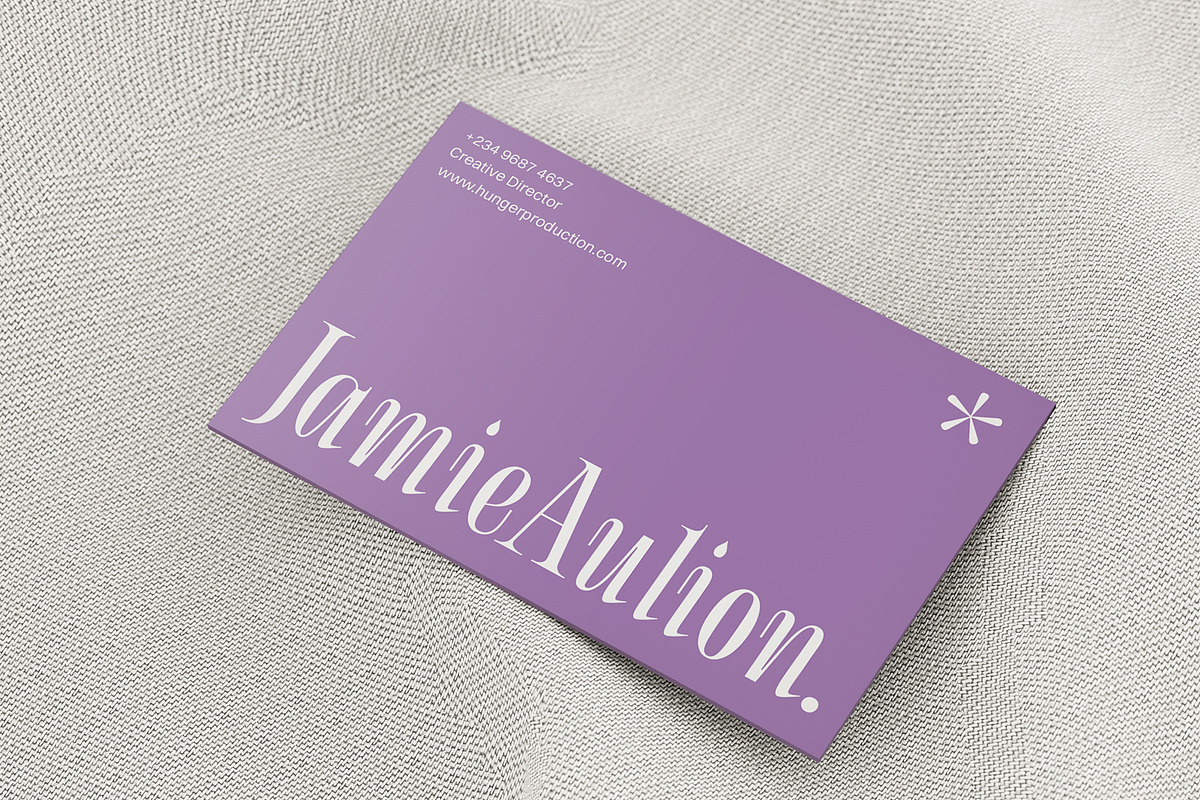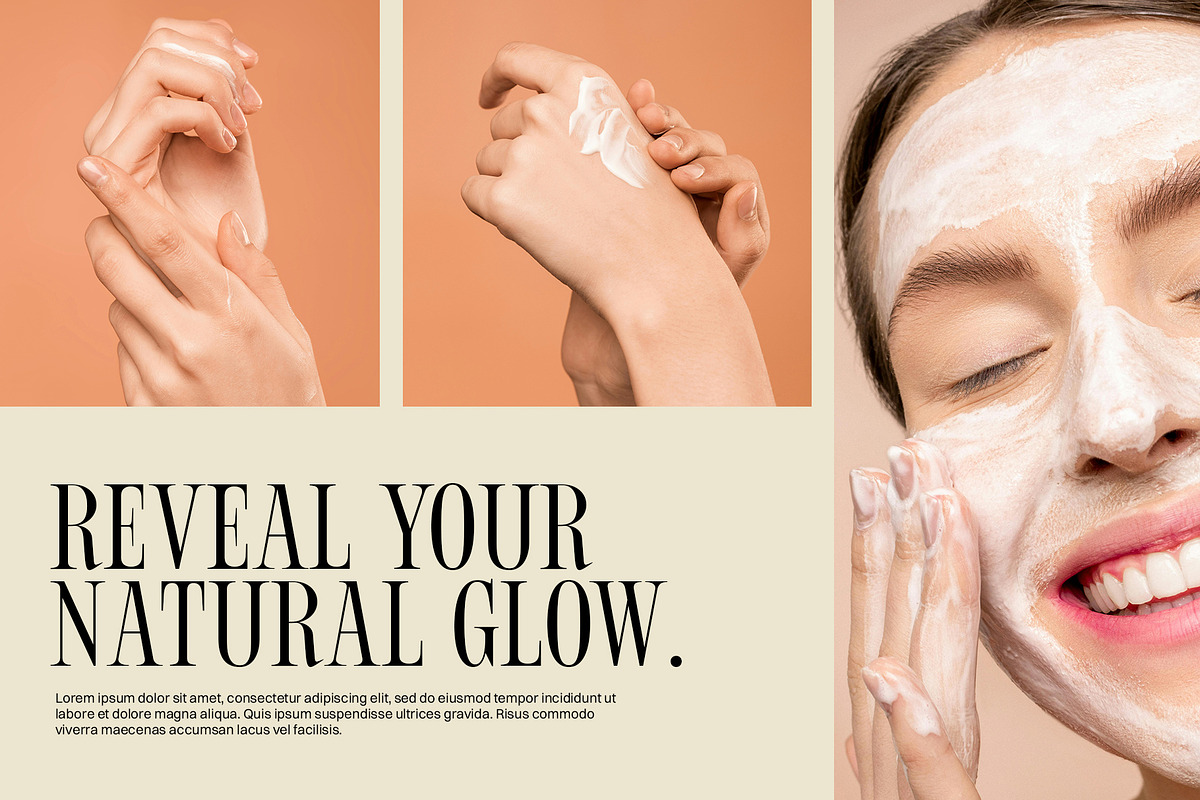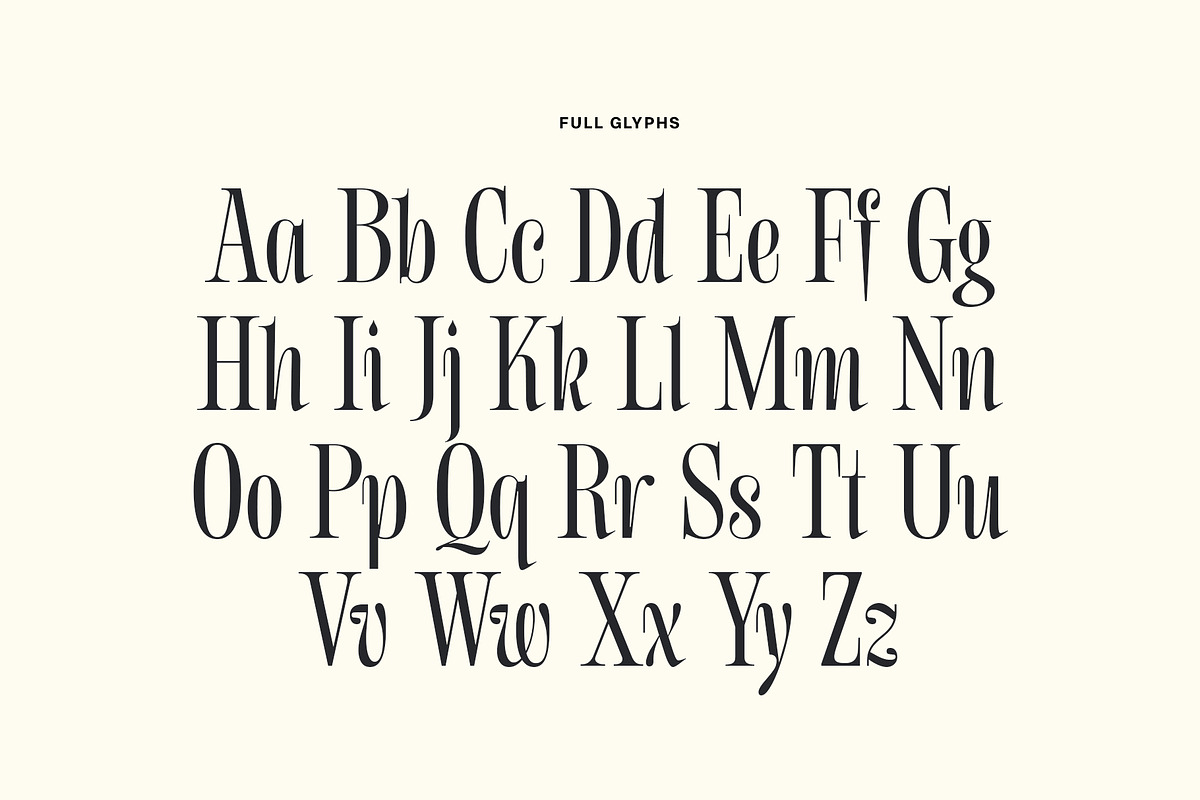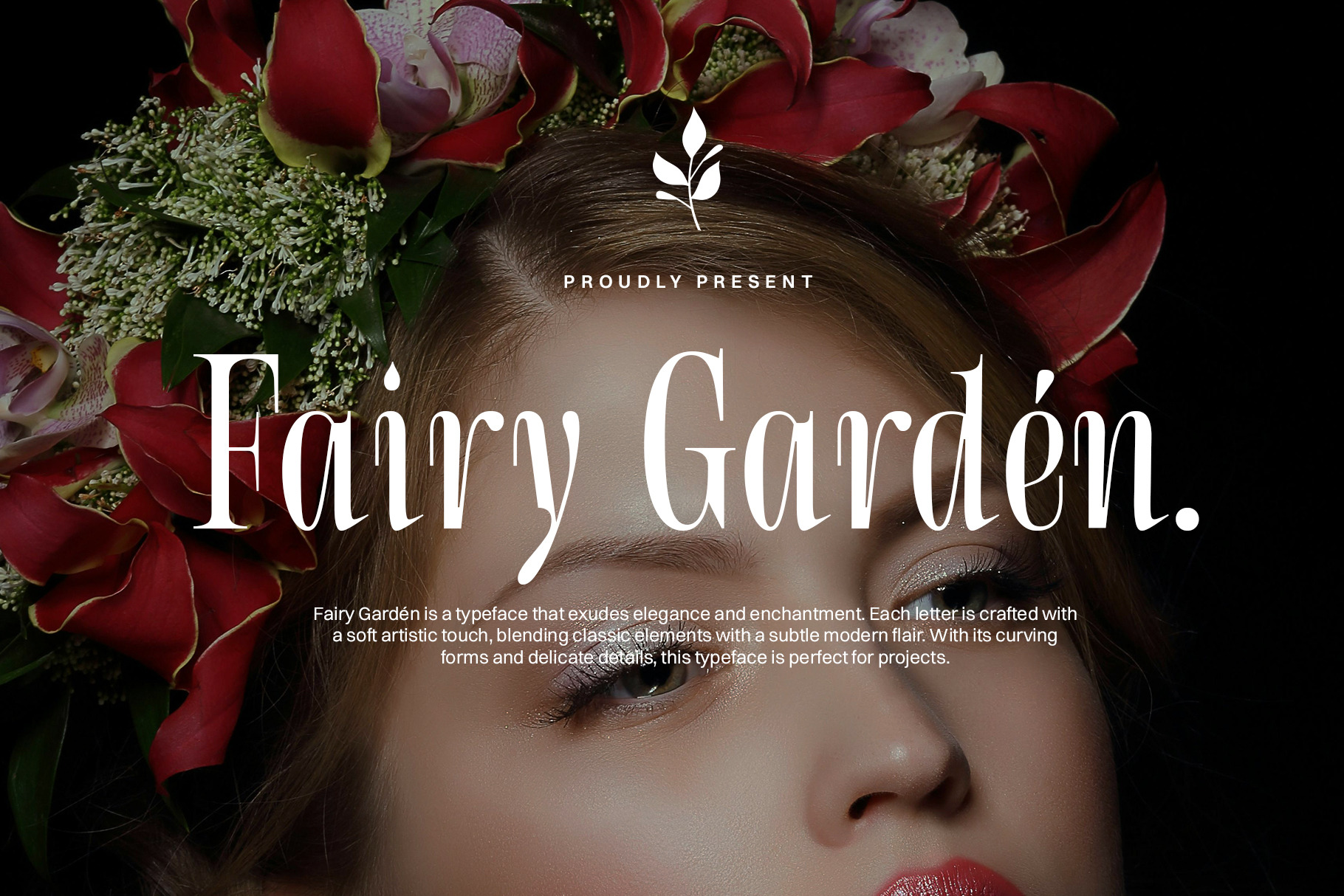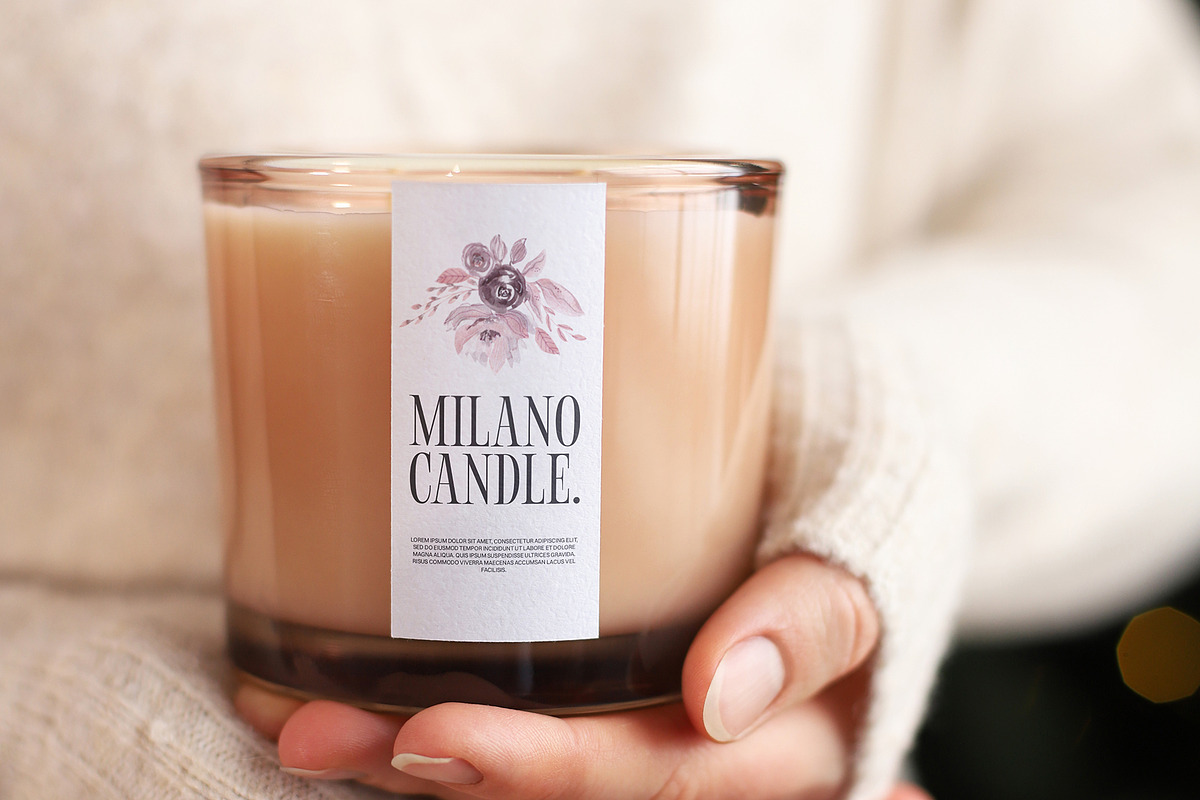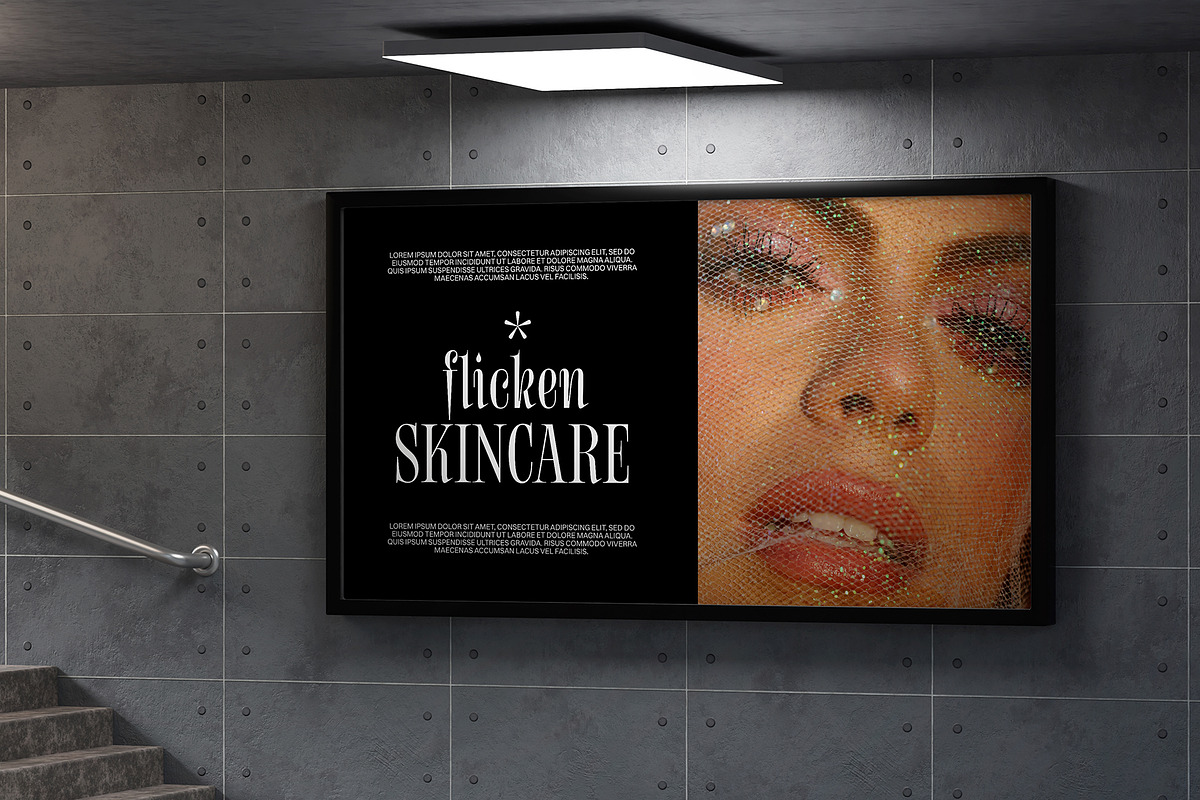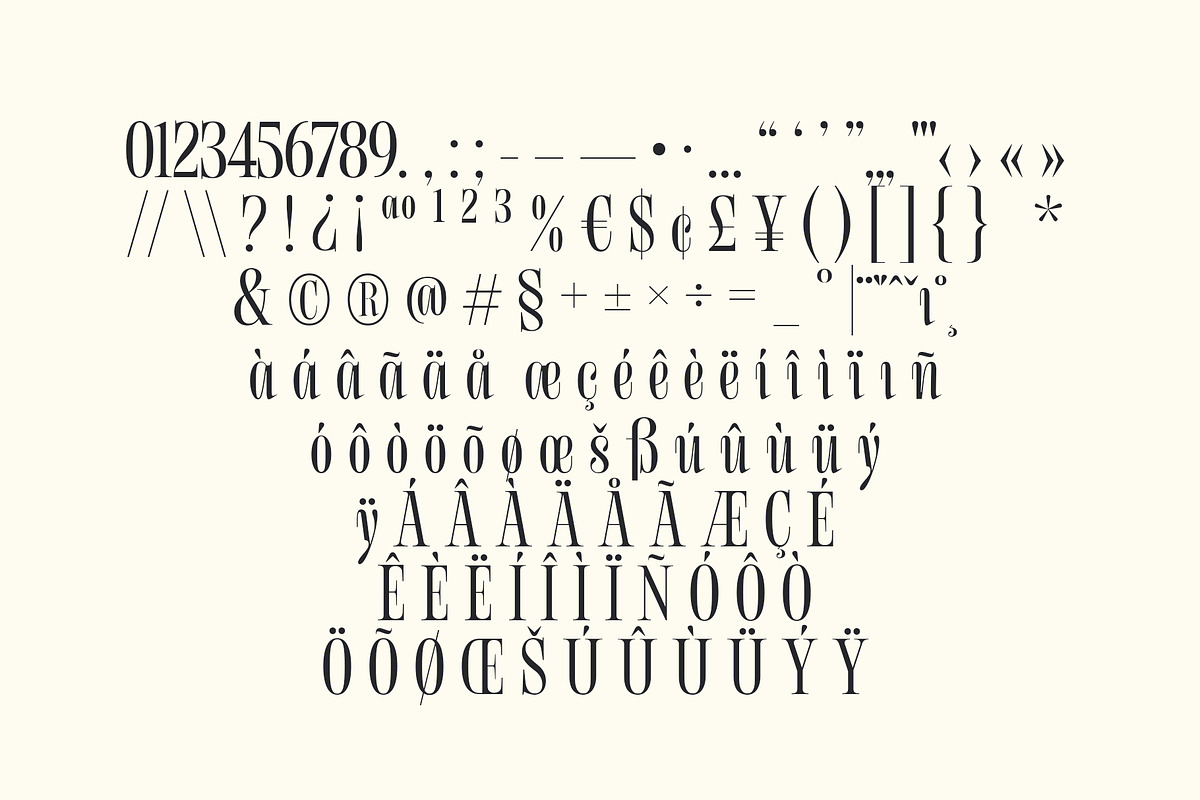
Fairy Garden - Elegant Serif Font
Fairy Garden is a typeface that exude elegance and enchantment. Each letter is crafted with a soft artistic touch, blending classic elements with a subtle modern flair. With its curving forms and delicate details, this typeface is perfect for projects.